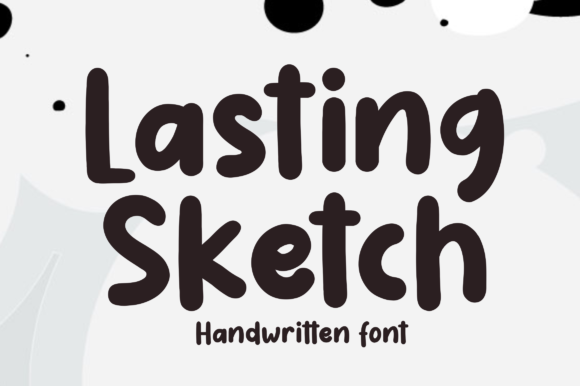
Lasting Sketch Font
Introducing Lasting Sketch Font, the playful script font that will ignite your creativity and captivate your audience. Step into a world of whimsical charm and endless possibilities with this delightful handwritten font. It's the perfect font for adding a touch of personal flair to your interior design projects, digital designs, presentations, or handmade greeting cards.
With its charming imperfections and natural flow, Lasting Sketch Font will bring a unique and captivating element to your work. Whether you're a seasoned designer or just starting out, this font is easy to use and versatile enough to suit a wide range of projects. Experience the joy of creating designs that resonate with your audience and leave a lasting impression.
Lasting Sketch Font is more than just a font; it's a creative companion that will accompany you on your design journey. Its playful and heartwarming style will add a touch of magic to your projects, making them stand out from the crowd. Let your imagination run wild and explore the countless ways you can incorporate this font into your work.